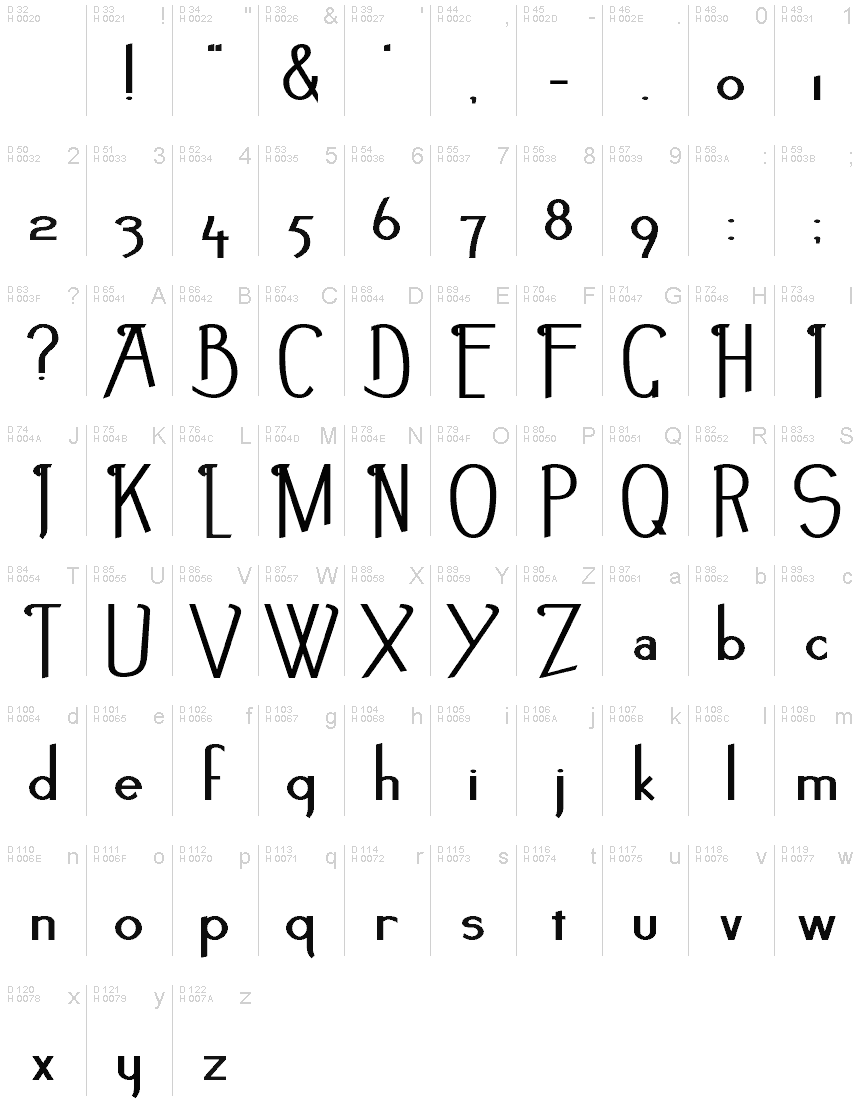
Noir-et-Blanc Bold
Noir-et-Blanc Bold is a captivating display font that exudes a distinct retro charm. Designed by Paul Lloyd, this typeface boasts a striking contrast between thick and thin strokes, creating a bold, eye-catching aesthetic. The vintage-inspired letterforms and playful ligatures lend a timeless quality, making Noir-et-Blanc Bold well-suited for a range of design applications, from retro-themed branding to impactful event posters and editorial layouts.
Its versatility allows designers to elevate their projects with a touch of nostalgic elegance, seamlessly blending the old and the new.